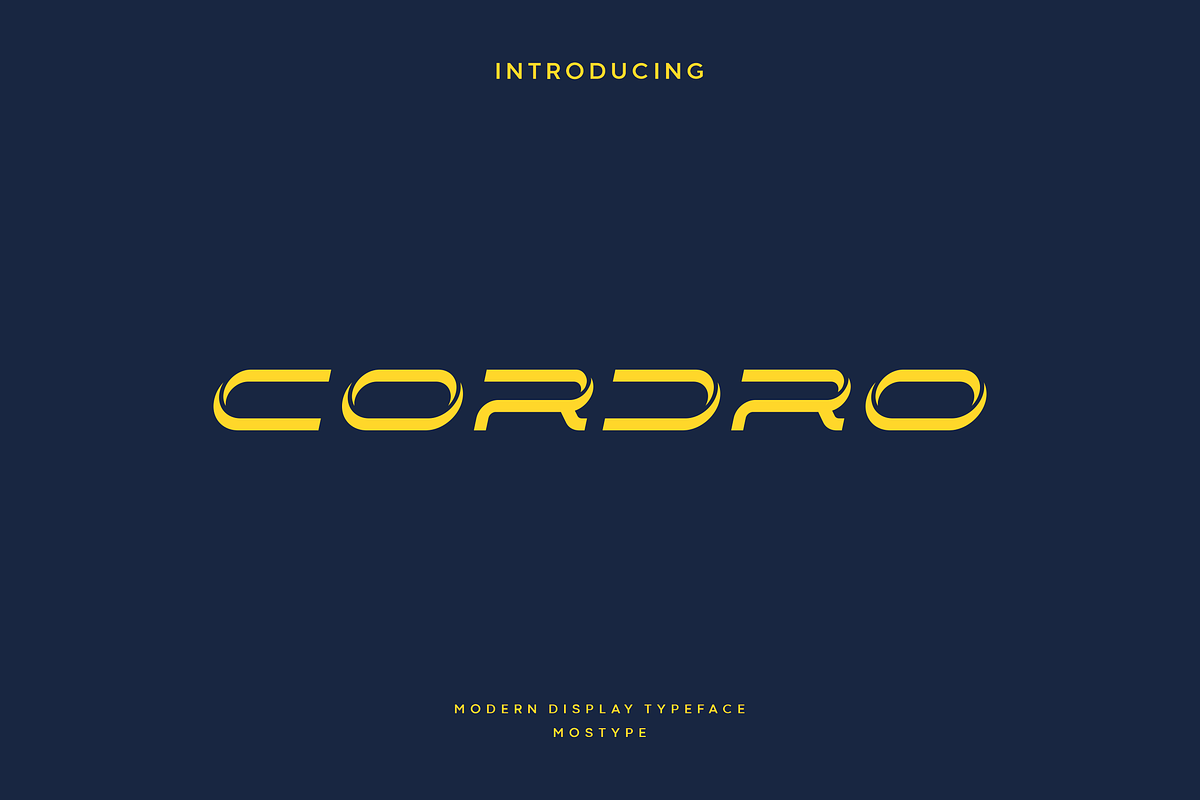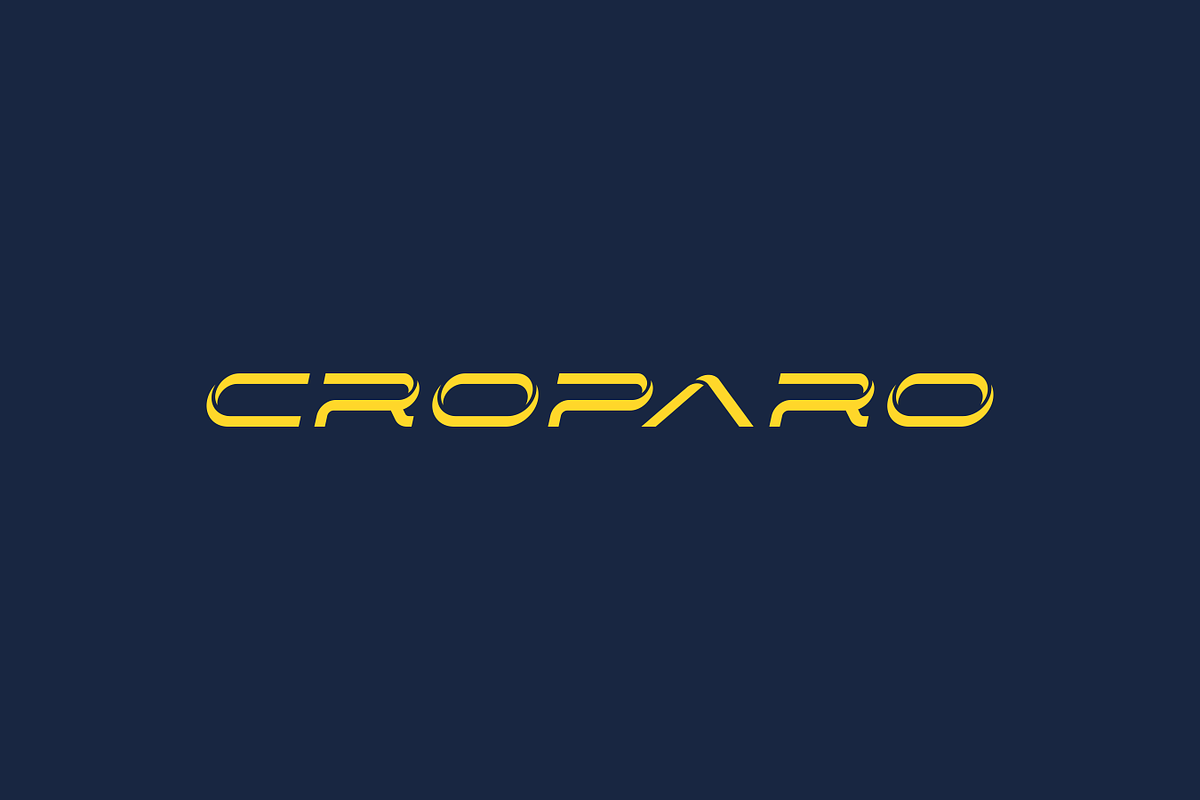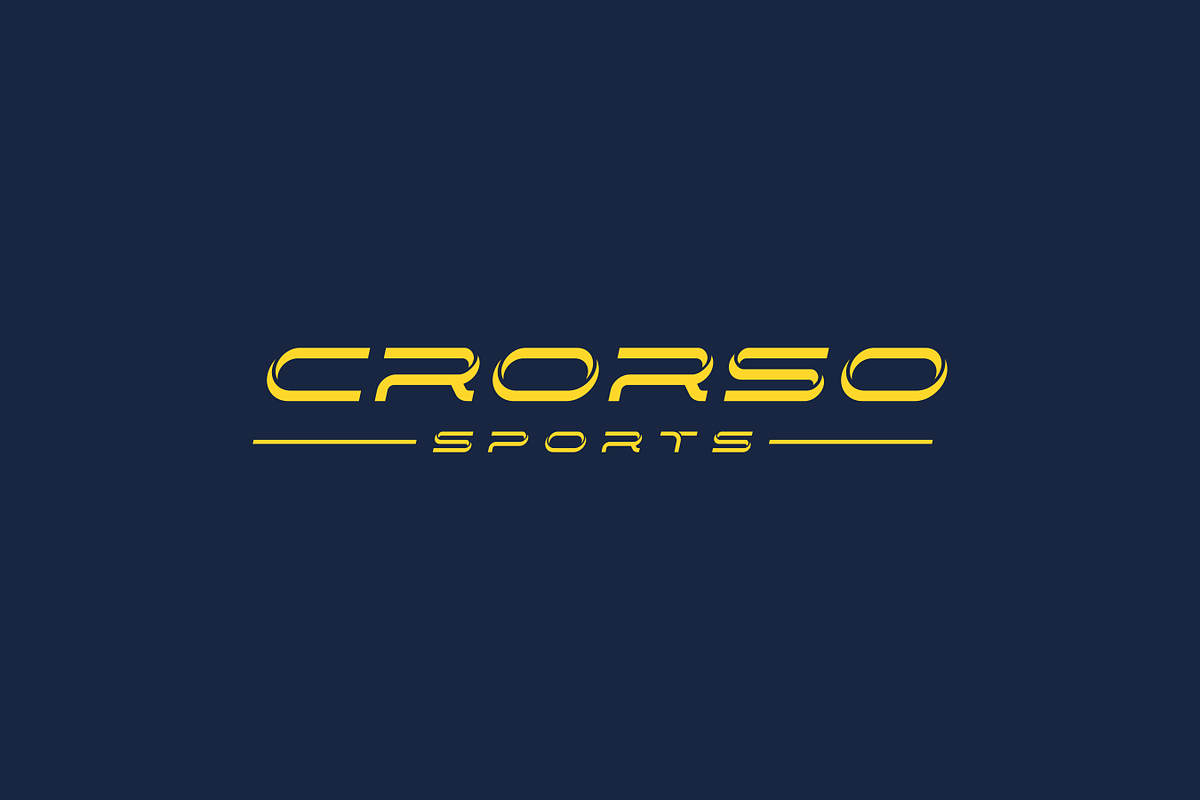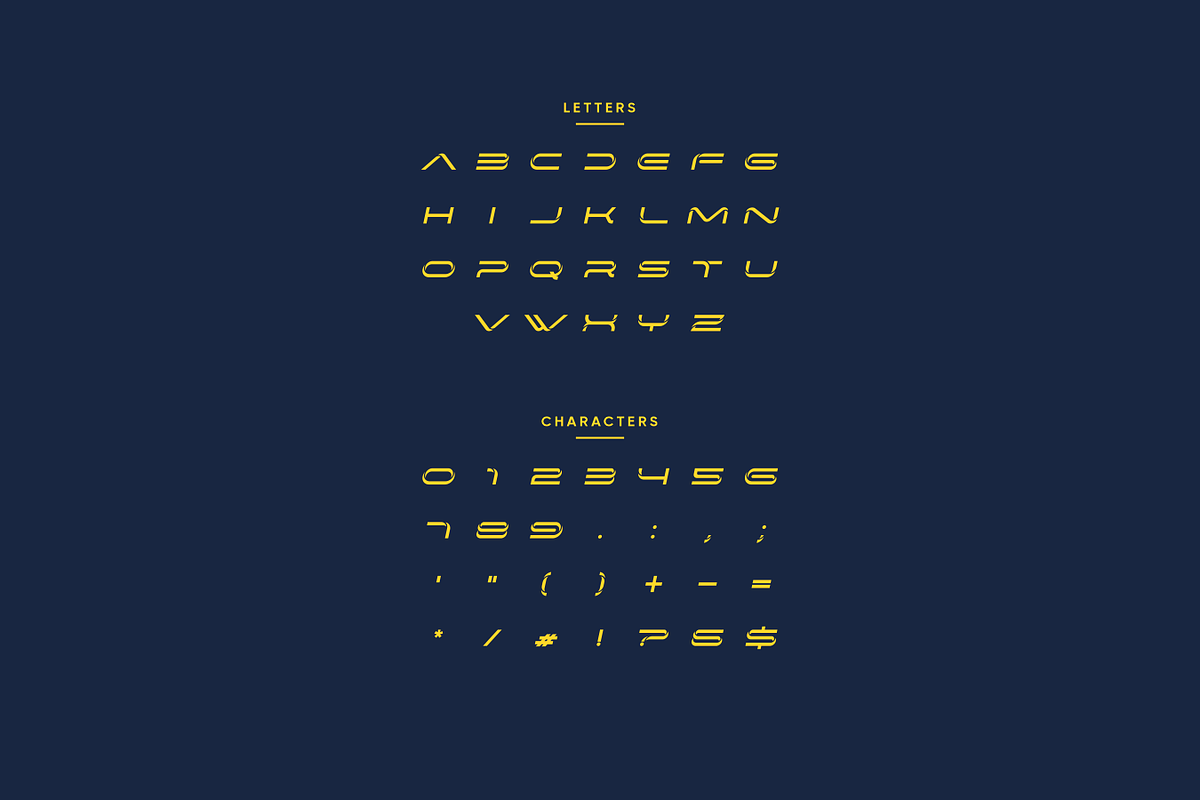
Cordro - Modern Display Typeface
Cordro is a meticulously crafted typeface designed specifically for logos, branding, headers, and titling. With precise spacing tailored for impactful logos and branding materials, this font ensures your designs make a lasting impression. Please note, font isn't suitable for body text, but excels in visual applications where every detail matters. Elevate your design projects with this font today.